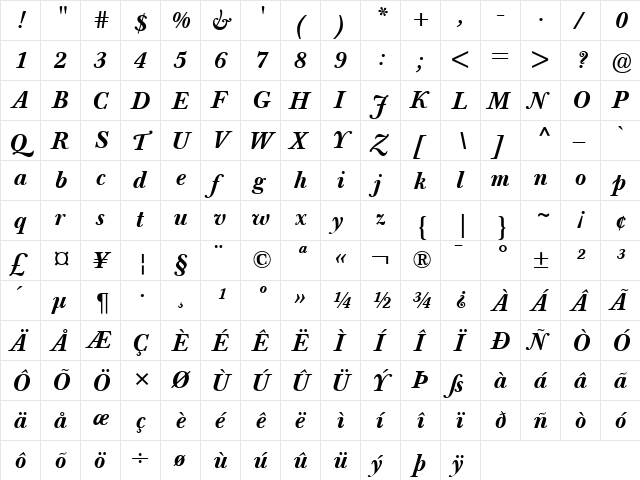
Berthold Baskerville Book ItalicBold Font Preview
Design Context for Berthold Baskerville Book Typeface
Berthold Baskerville Book is a composed and adaptable typeface that performs quietly and consistently across a wide range of design contexts. The dynamic lean of this cut emphasises speed and emphasis in any layout. The heavy weight commands attention and anchors typographic hierarchies.
Pro Tip: Try Berthold Baskerville Book for annotation and caption copy alongside an upright companion — the contrast in angle creates a dynamic but ordered typographic system.